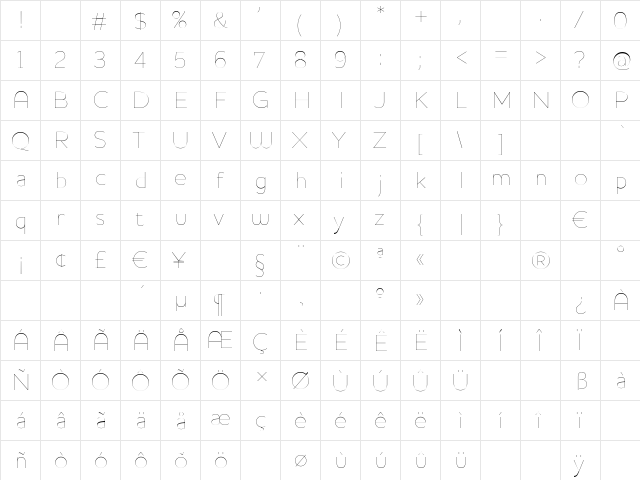
HouschkaThin Regular
Design Context for HouschkaThin Typeface
HouschkaThin offers clean, dependable letterforms without strong stylistic allegiance, making it a practical choice for designers who need flexibility. The delicate stroke weight brings airiness and refinement to layouts.